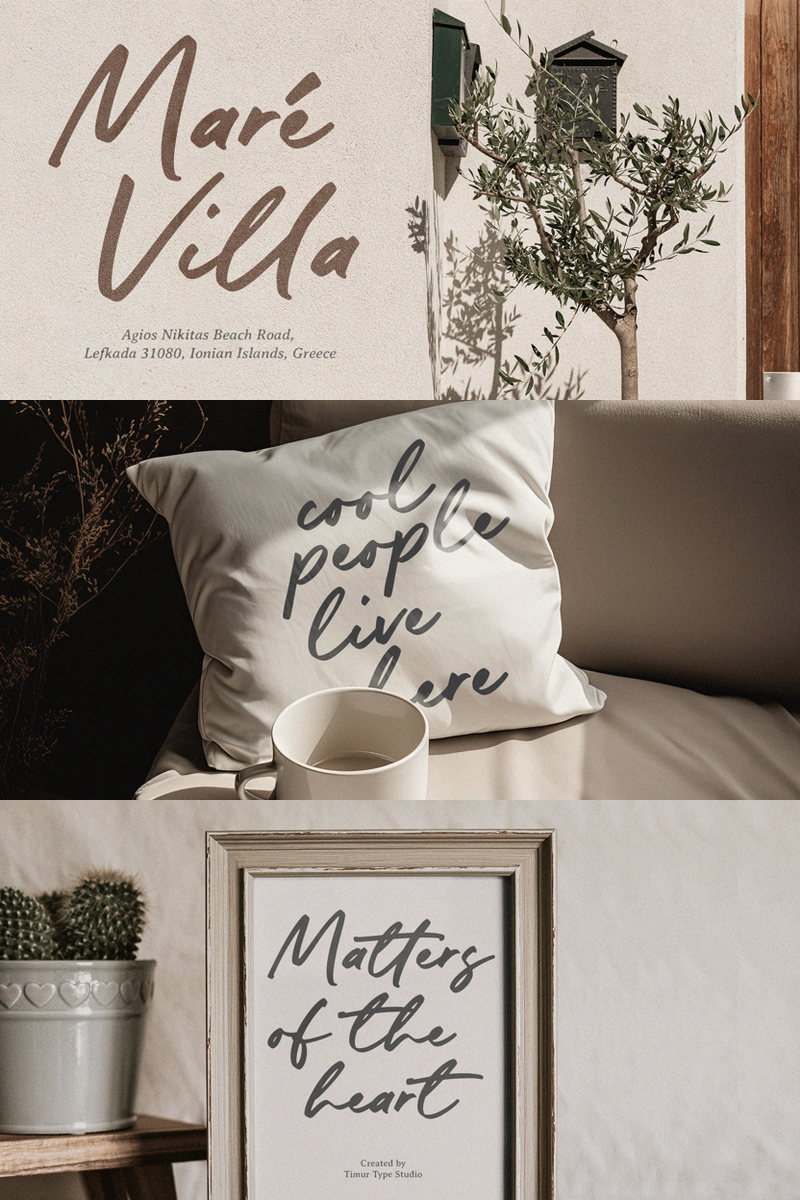
Mastering Digital Distinction: How Can Winterhold Kingdom's Adaptability Sculpt Your Tech & SaaS Brand's Iconic Logo and Evolving Visual Language?
In the fiercely competitive landscape of Tech & SaaS, a brand's visual identity transcends mere aesthetics; it is the silent architect of perception, fostering immediate trust and enduring recognition. It's about crafting a cohesive narrative that resonates across every digital touchpoint. Enter Winterhold Kingdom – not merely a font, but a strategic asset meticulously engineered for the discerning digital enterprise.
Winterhold Kingdom embodies a refined precision, balancing classic elegance with a sleek, contemporary edge. Its personality is one of understated power and effortless adaptability. Each meticulously crafted curve, every precisely weighted stroke, is designed for unparalleled clarity and profound impact. This unique versatile font transitions seamlessly from a commanding headline to an intricate UI element without losing its inherent distinction. It possesses a 'chameleon-like' quality, capable of leading a bold statement while also integrating harmoniously into complex layouts, ensuring your message consistently takes center stage with sophisticated authority.
Consider a familiar challenge facing many rapidly scaling Tech & SaaS companies: how do you maintain a consistent, instantly recognizable brand identity font when expanding across diverse platforms, introducing innovative features, and catering to an evolving user base? A common pitfall is a fragmented visual language – a logo that doesn't quite translate to mobile, an app interface that feels disconnected from the website, or marketing collateral lacking a cohesive voice. This inconsistency dilutes brand recall and subtly erodes user trust.
Winterhold Kingdom is the definitive solution to this very dilemma. Its inherent adaptable typeface design means it’s engineered to thrive in any environment. Imagine your brand's core identity, captured flawlessly in a minimalist, impactful logo, then translating with perfect legibility to the densest data dashboard, and maintaining its sophisticated allure in a compelling SaaS pitch deck. This Winterhold Kingdom font ensures a unified visual experience, guaranteeing that whether a user encounters your brand on a smartwatch, a desktop, or a printed report, the message and the premium feeling remain consistently cohesive.
Winterhold Kingdom stands apart due to its unparalleled adaptability and its profound impact on both brand and user experience font.* Fortified Brand Identity: It provides the foundational consistency for a truly cohesive and memorable brand presence. From the iconic power of your logo – designed to embody your core values – to the nuanced readability of your in-app microcopy, Winterhold Kingdom ensures every typographic element reinforces your brand's unique narrative, building recognition and unwavering trust.* Elevated User Experience (UX): With meticulous attention to legibility and visual hierarchy, this Tech & SaaS font transforms complex data interfaces into intuitive, engaging experiences. It guides the user's eye effortlessly, reducing cognitive load and enhancing overall usability.* Future-Proof Design: As your Tech or SaaS product evolves, so too must its visual language. Winterhold Kingdom's adaptable typeface nature means it’s built to scale with you, effortlessly accommodating new design trends, platform updates, and brand refinements without requiring a complete typographic overhaul. It's an astute investment in enduring visual consistency.* Design Agility: Empower your design teams with a single, comprehensive font family that eliminates the need for disparate typefaces, streamlining workflows and ensuring creative consistency across all projects.
Winterhold Kingdom: The Cornerstone of Distinctive Digital Identity.
Practical Use Cases and Ideal Design Applications:* Signature Branding: Craft dynamic, adaptable logos that transition flawlessly from a favicon to a large-scale billboard. Its clean lines and balanced forms make it ideal for creating a truly memorable brand mark for any Tech & SaaS company.* Intuitive UI/UX Design: Elevate dashboards, mobile app interfaces, and web applications with exceptional readability and a sophisticated aesthetic, ensuring a seamless user journey.* Compelling Marketing & Sales Collateral: Design high-impact landing pages, digital advertisements, compelling pitch decks, and insightful annual reports that resonate with clarity, professionalism, and undeniable visual appeal.* Internal Communications: Maintain brand consistency across all internal documentation, presentations, and employee tools, fostering a unified company culture.